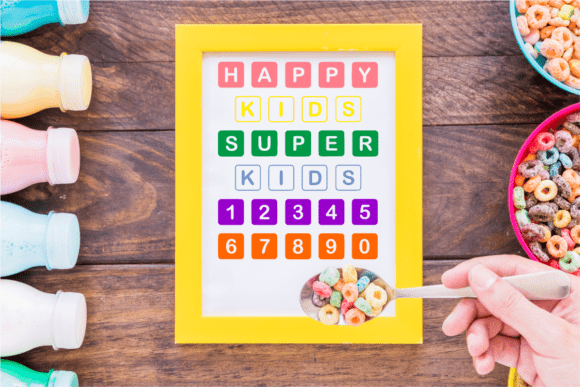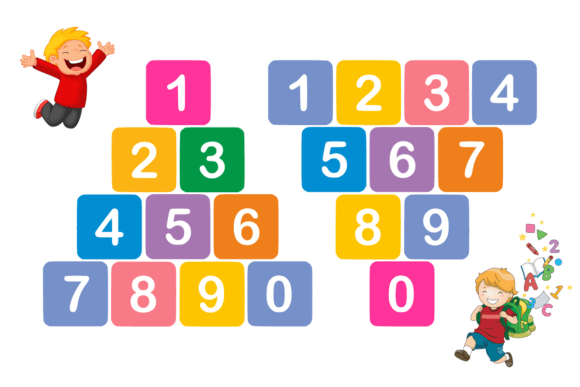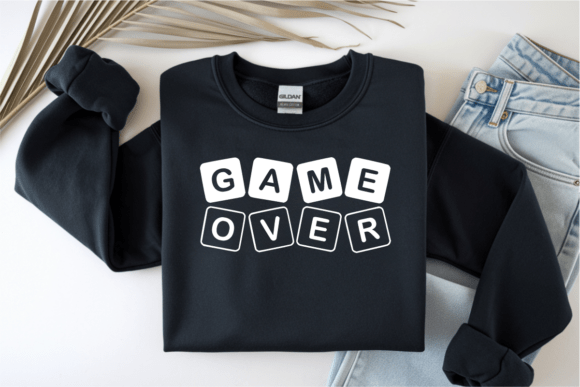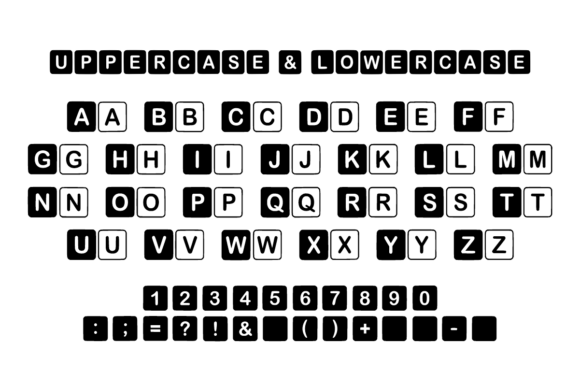
Unlocking Creativity with Crossword Puzzle Font
Immerse yourself in the realm of textual creativity with our Crossword Puzzle font! This captivating typeface, crafted from the concept of the quintessential word board game, offers an engaging combination of lowercase outlines and uppercase silhouettes, flanked by numbers and symbols. It’s not just a font but an experience, both user-friendly and thrilling, perfect for bringing academic projects, scrapbooks, worksheets, and posters to life.
The Concept Behind Crossword Puzzle Font
The Crossword Puzzle font is inspired by the classic word game that has been a staple of entertainment and intellectual challenge for decades. The game’s grid-based format, where words are filled in horizontally and vertically, has been translated into a unique typographic style. The font features:
- Lowercase outlines: Providing a subtle yet elegant touch to your designs.
- Uppercase silhouettes: Adding a bold and striking element to your text.
- Numbers and symbols: Completing the font with a comprehensive set of characters to enhance your creative projects.
The Crossword Puzzle font is more than just a typeface – it’s a tool for self-expression and creativity. Whether you’re a designer, crafter, or DIY enthusiast, this font offers endless possibilities for:
- Academic projects: Add a touch of sophistication and fun to research papers, presentations, and educational materials.
- Scrapbooks: Create visually appealing and engaging scrapbook pages with the Crossword Puzzle font.
- Worksheets: Make learning more enjoyable with interactive and colorful worksheets.
- Posters: Design eye-catching posters that grab attention and convey your message effectively.
User-Friendly and Thrilling
The Crossword Puzzle font is designed to be user-friendly, making it easy to integrate into your design workflow. With its clean and intuitive design, you can:
- Easily customize the font to suit your project’s needs.
- Pair it with other fonts to create unique and visually appealing combinations.
- Use it for both digital and print projects, ensuring consistency across different mediums.
Bringing Fun and Learning Together
The Crossword Puzzle font embodies the spirit of fun and learning, making it perfect for projects that aim to educate and entertain. By incorporating this font into your designs, you can:
- Create engaging educational materials that capture students’ attention.
- Develop interactive games and activities that promote learning and cognitive development.
- Design visually appealing and informative posters that convey important messages.
Adding Charm to Your Font Arsenal
The Crossword Puzzle font is a unique addition to any designer’s or crafter’s font collection. Its distinctive style and versatility make it an excellent choice for:
- DIY projects: Add a personal touch to your handmade creations.
- Branding and marketing materials: Stand out from the crowd with a memorable and engaging visual identity.
- Personal projects: Bring a touch of whimsy and creativity to your personal designs and crafts.
In conclusion, the Crossword Puzzle font is an exciting and versatile typeface that offers a world of creative possibilities. With its captivating design, user-friendly interface, and endless applications, it’s the perfect addition to any designer’s or crafter’s toolkit. So why not add the charm of a Crossword Puzzle to your font arsenal and revel in the joy it brings to every DIY project? Let every word echo with the essence of fun and learning!